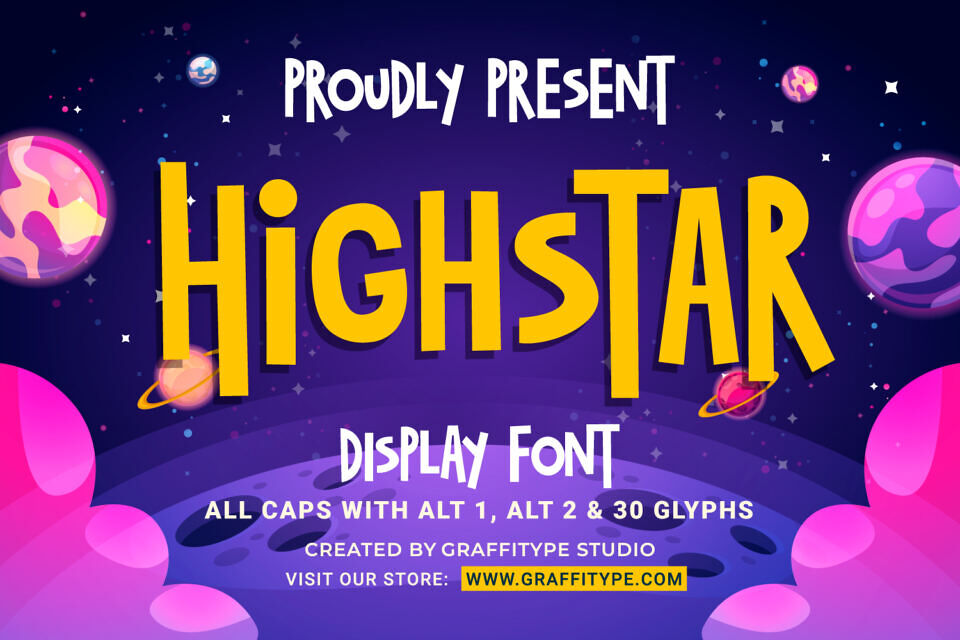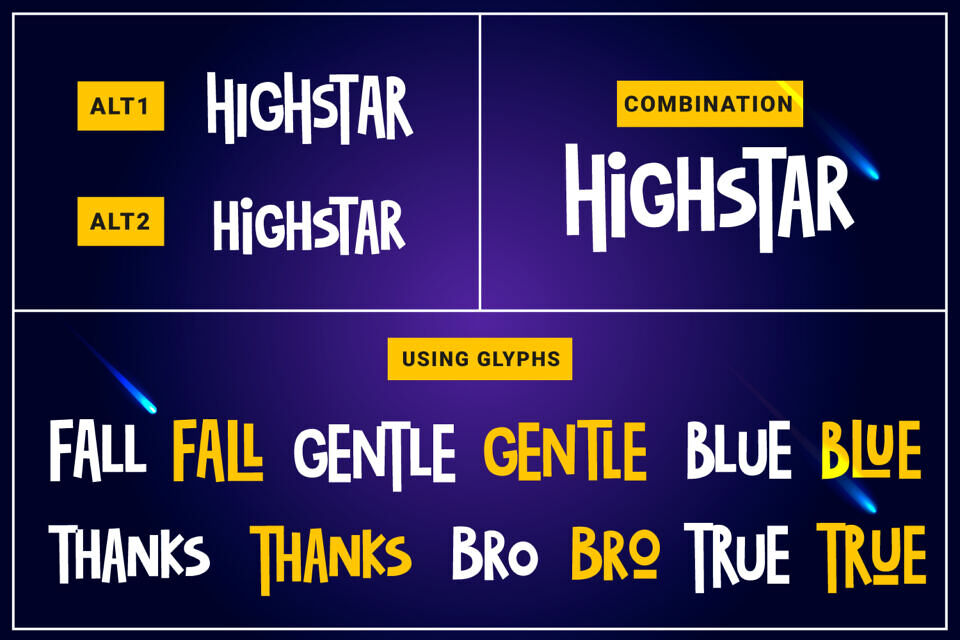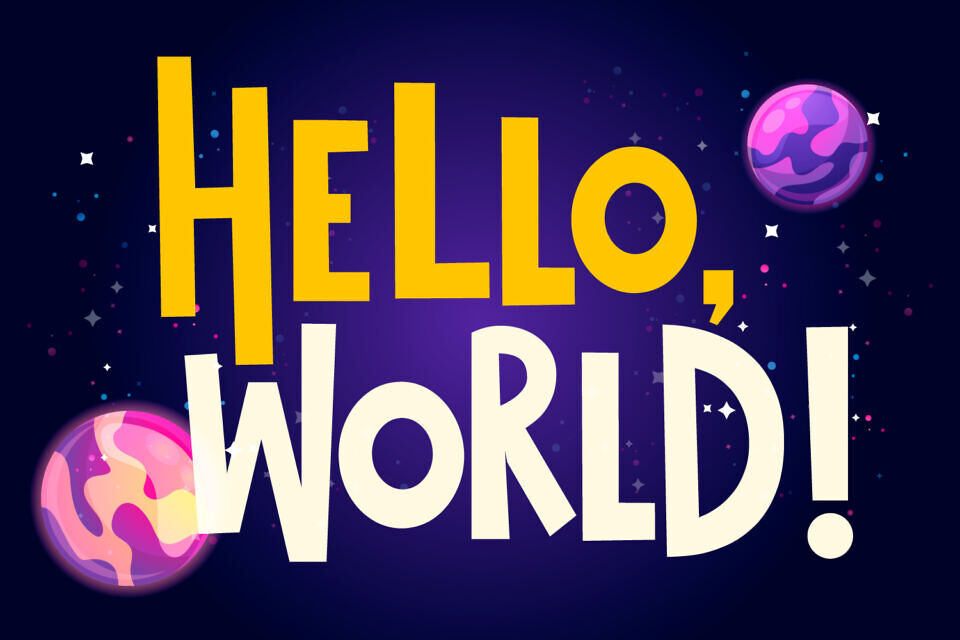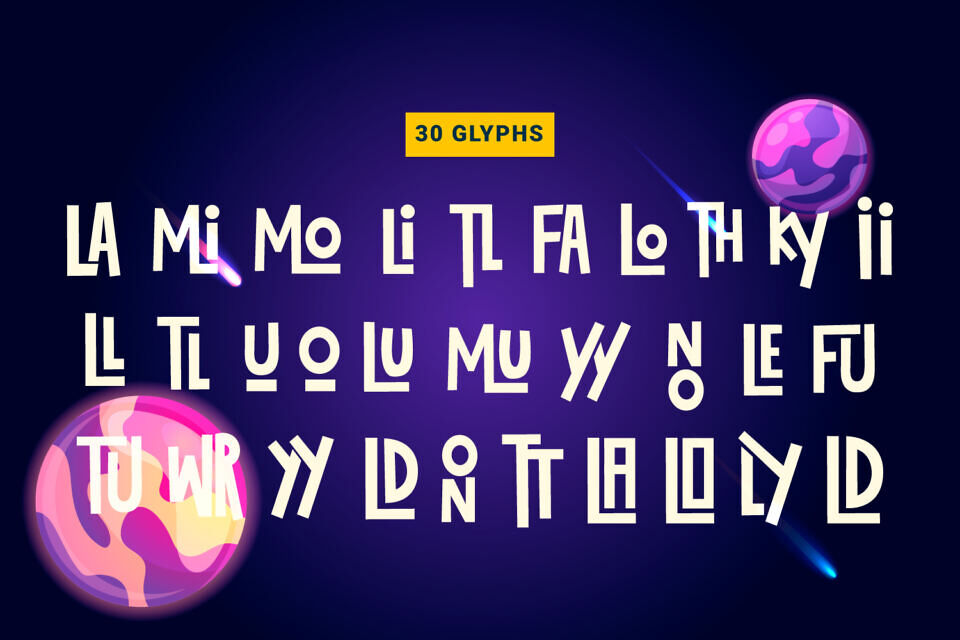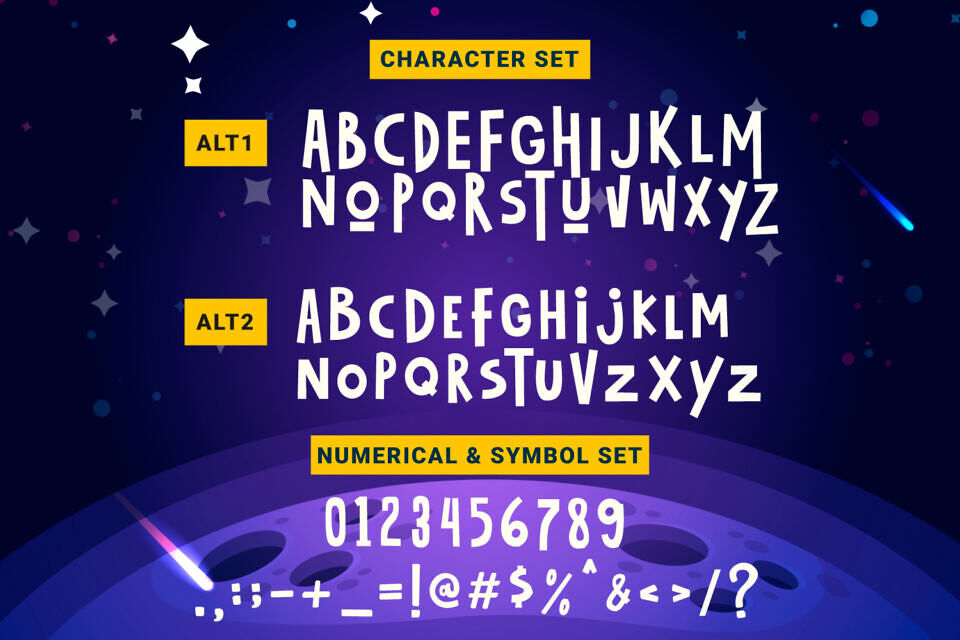
Meet High Star Font, an all-caps display typeface crafted to command attention and elevate your design to new heights. With its strong presence and sharp details, High Star is perfect for bold headlines, modern logos, striking posters, and statement branding.